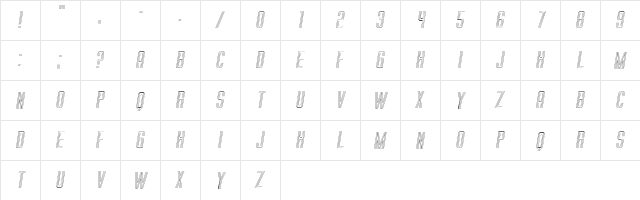
Trio Italic
Design Context for Trio Typeface
Trio offers clean, dependable letterforms without strong stylistic allegiance, making it a practical choice for designers who need flexibility. The dynamic lean of this cut emphasises speed and emphasis in any layout.